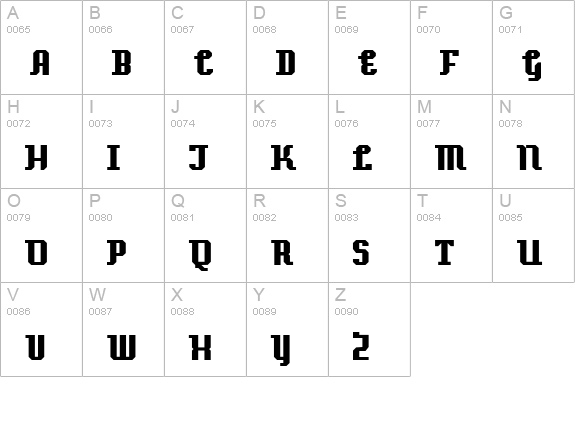
Pellegrini Font Details
Pellegrini font is a striking and elegant typeface that exudes sophistication and charm. With its clean lines and classic proportions, this font is perfect for a wide range of design projects, from branding and logos to invitations and headlines. What sets Pellegrini font apart is not only its timeless design, but also the fact that it is available free of charge. That's right, this exceptional typeface can be downloaded at no cost, exclusively at FontsMarket.com. This means that designers and enthusiasts alike can enjoy the beauty and versatility of Pellegrini font without any financial constraints. Whether you're a professional designer or a hobbyist, Pellegrini font offers endless possibilities. Its versatile nature allows it to be used in a variety of contexts, from modern and minimalistic designs to more traditional and ornamental styles. The versatility of Pellegrini font is further enhanced by its extensive character set, including alternates, ligatures, and swashes, providing even more creative freedom. Designed with meticulous attention to detail, Pellegrini font ensures legibility while maintaining its unique personality. Its smooth curves and balanced letterforms create a harmonious flow, making it a joy to read and work with. The font's generous x-height and well-spaced characters contribute to its overall readability and make it suitable for both print and digital mediums. With Pellegrini font, you can elevate your designs to new heights, capturing attention and leaving a lasting impression. Whether you're designing a logo for a high-end brand, crafting a wedding invitation, or creating a captivating headline, Pellegrini font will effortlessly enhance your visuals. So why wait? Don't miss out on this incredible opportunity to download Pellegrini font for free, exclusively at FontsMarket.com. Discover the power of this exceptional typeface and unlock a world of creative possibilities. Embrace elegance and style with Pellegrini font, and let your designs shine.